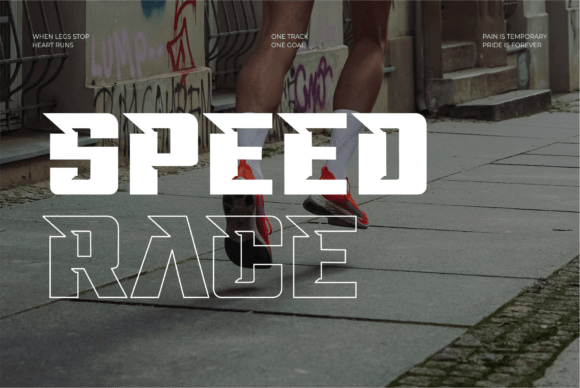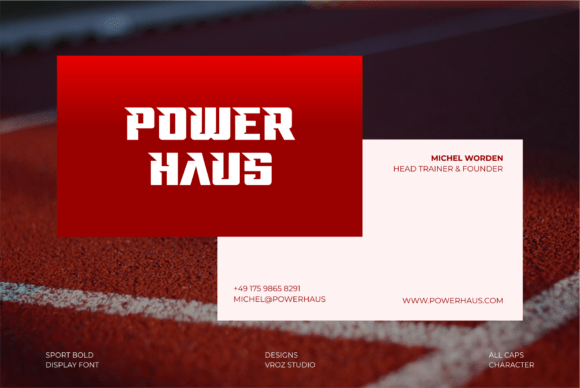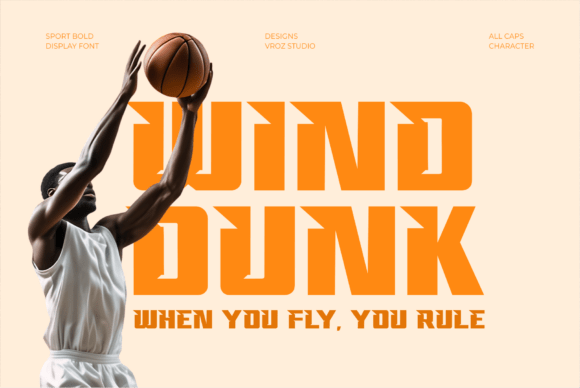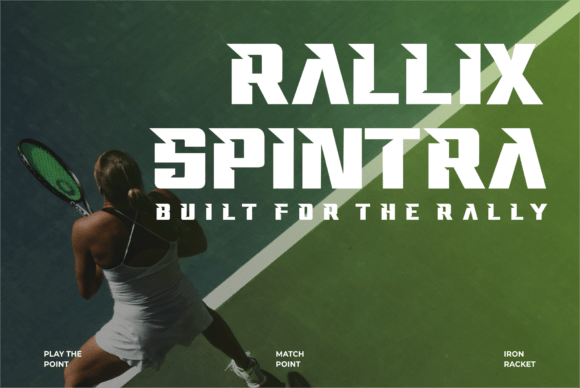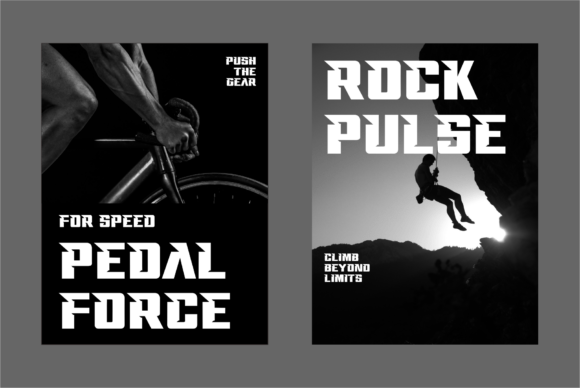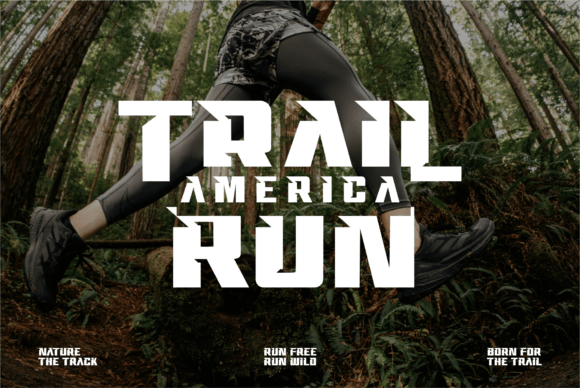
The Power of BRICE: Unleashing Bold Sport Typography
I still remember the struggle of working on a sports branding project, desperately searching for a font that could convey the energy and competitiveness of the client’s athletic wear line. The brief was simple: create a bold, modern, and professional look that would appeal to a young audience. But, as I scrolled through font after font, I realized that finding the perfect typeface was no easy feat. That was until I stumbled upon BRICE, a game-changing sport display font that exceeded my expectations in every way.
A First Impression: What Makes BRICE Stand Out
BRICE is more than just a font – it’s a statement piece. Designed to deliver strength, speed, and visual impact, this bold sport display font is perfect for sports branding, team identity, fitness visuals, and competitive design projects. Its sharp edges, solid proportions, and dynamic athletic structure make it a versatile typeface that works seamlessly for gym branding, football posters, basketball promotions, racing graphics, esports visuals, and modern athletic campaigns.
So, what makes BRICE so special? Here are a few things I love about this font:
• ✨ Powerful letterforms: BRICE’s bold and confident design makes it perfect for headlines and large-scale typography.
• ✅ Strong readability: Even at smaller sizes, BRICE remains clear and legible, making it suitable for a wide range of design applications.
• 💪 Versatility: From sports apparel to event posters, BRICE’s modern sport aesthetic adapts effortlessly to different design contexts.
Of course, no font is perfect, and BRICE has a few minor quirks:
• 🤔 Limited use of italics: While BRICE’s bold design works beautifully, its italic variations are somewhat limited, which might not be ideal for certain design projects.
• ⚠️ Glyph support: Some users may find that BRICE’s glyph support is not as extensive as other fonts, which could limit its use in certain contexts.
Exploring Alternatives: Similar Fonts to BRICE
While BRICE is an exceptional font, you may want to explore other options for your design projects. Here are a few similar fonts and their personalities:
• Montserrat: A sleek and modern sans-serif font perfect for urban and sports-related designs.
• Open Sans: A clean and highly legible font suitable for digital and print applications.
• Avenir: A geometric sans-serif font with a strong, athletic feel.
• Impact: A classic bold font ideal for headlines and titles.
The Story Behind BRICE: Designer Inspiration
BRICE was designed with one goal in mind: to create a bold, modern, and professional sport display font that would meet the demands of the sports industry. Inspired by the dynamic and competitive world of sports, the designer crafted BRICE with sharp edges, solid proportions, and a dynamic athletic structure. The result is a font that embodies the energy and confidence of sports branding.
Font Name Brice Font
Author Vroz Studio
What is BRICE font best used for? BRICE is ideal for sports branding, team identity, fitness visuals, and competitive design projects.
Is BRICE suitable for digital use? Yes, BRICE works well in digital applications, including social media graphics, website headers, and online advertising.
Is BRICE available in different weights? BRICE is available in bold weights, making it perfect for headlines and large-scale typography.